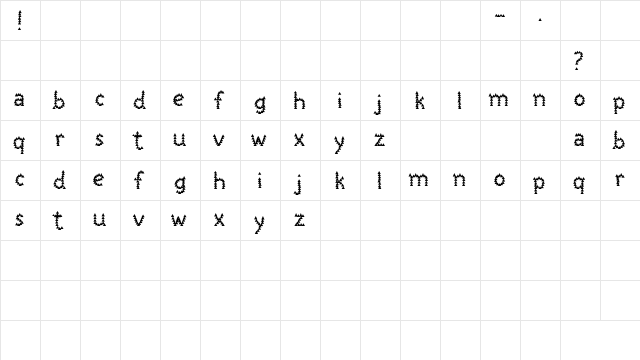
Scooter Boy Free Regular
Design Context for Scooter Boy Free Typeface
Scooter Boy Free is a composed and adaptable typeface that performs quietly and consistently across a wide range of design contexts.